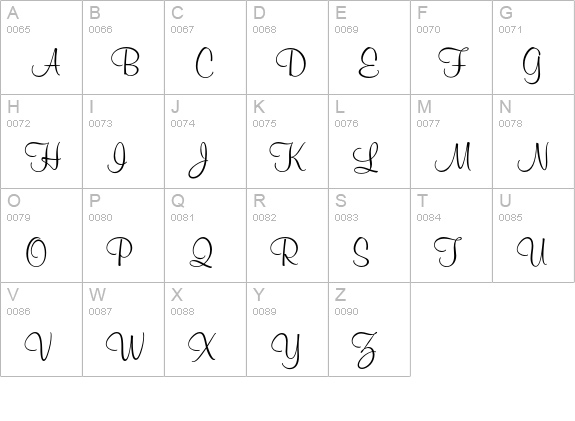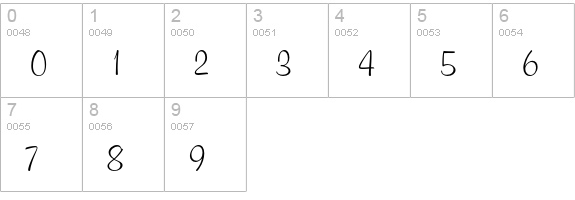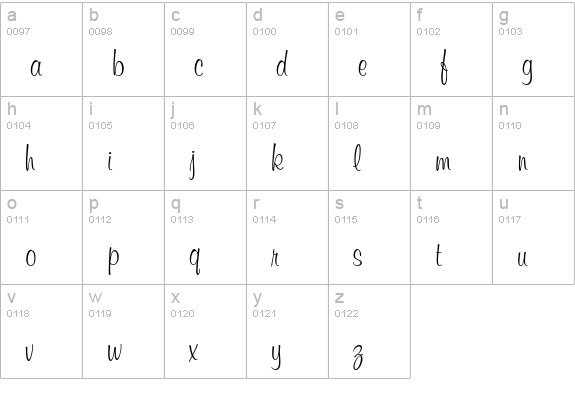
Murray Hill font exudes elegance and sophistication with its timeless appeal. This classic typeface combines traditional elements with a modern twist, making it perfect for a wide range of design projects. With its clean lines and stylish curves, Murray Hill font adds a touch of refinement to any text or headline. The best part? Murray Hill font is completely free to download at FontsMarket.com. This means you can elevate your designs without breaking the bank. Whether you're working on invitations, logos, or branding materials, this versatile font is sure to make a lasting impression. Download Murray Hill font today and add a touch of class to your next project.